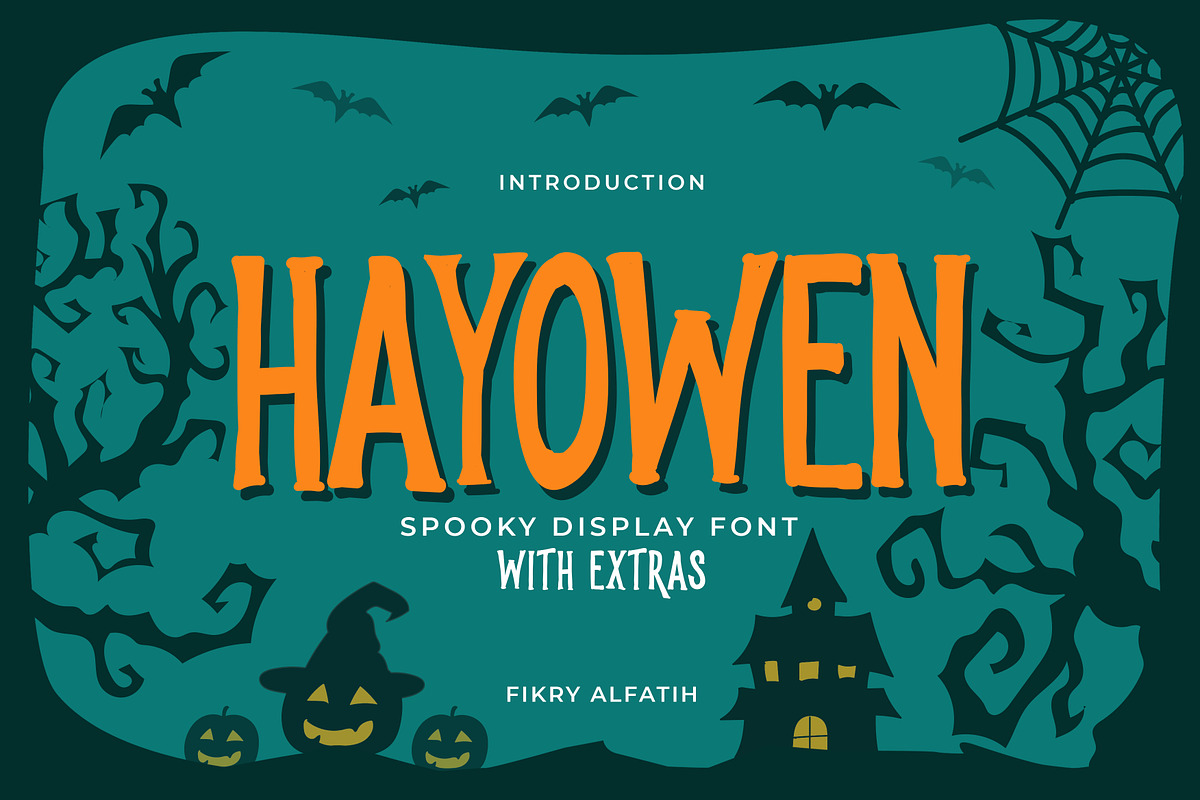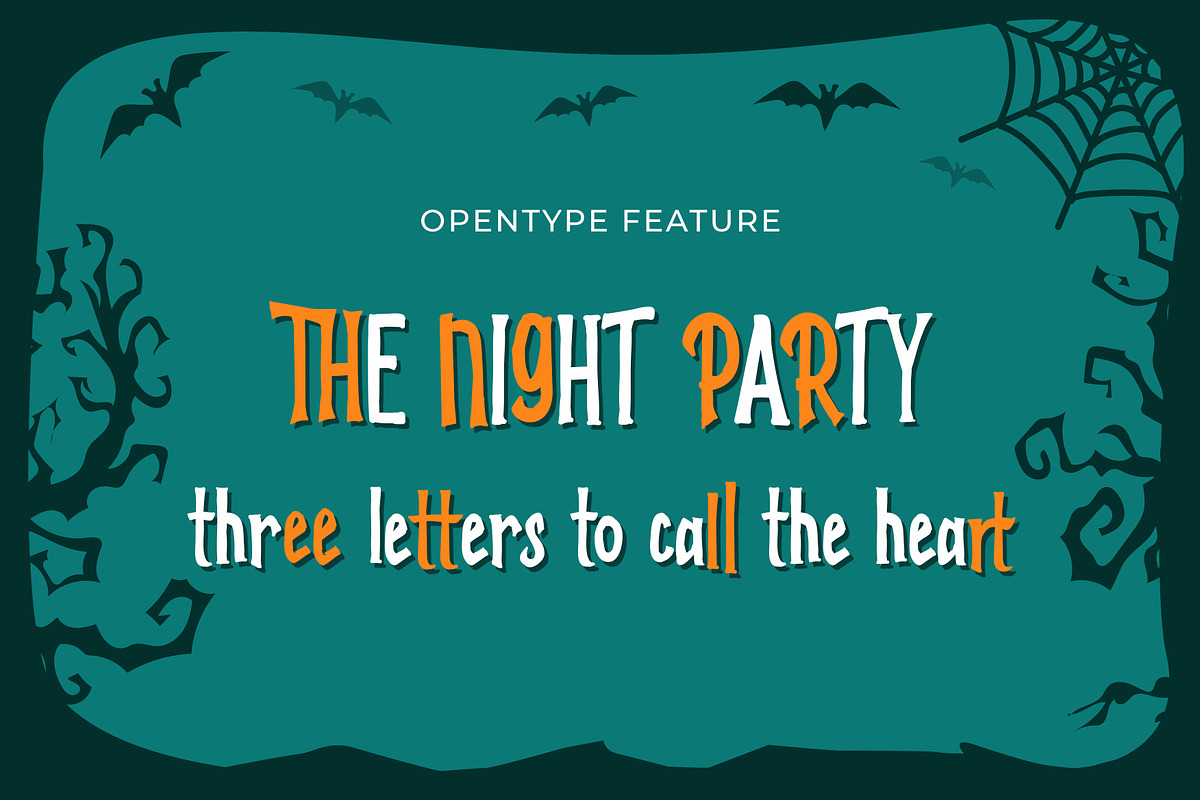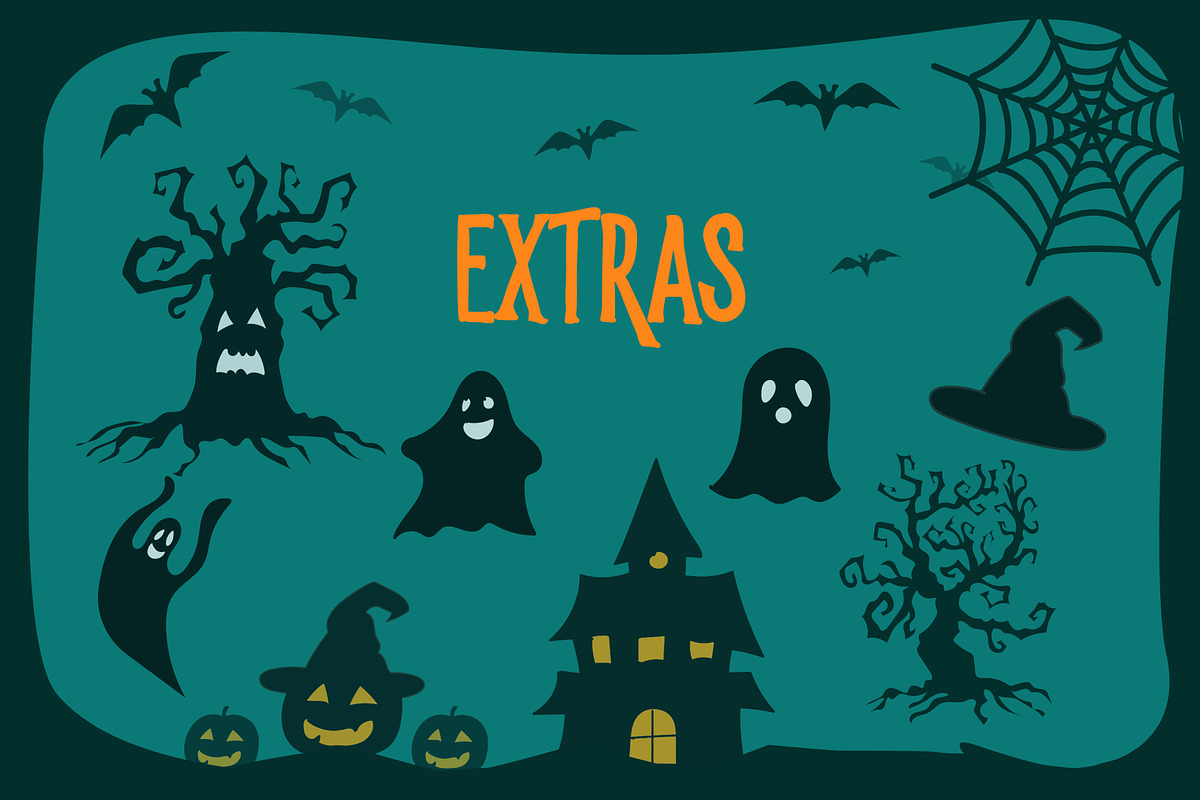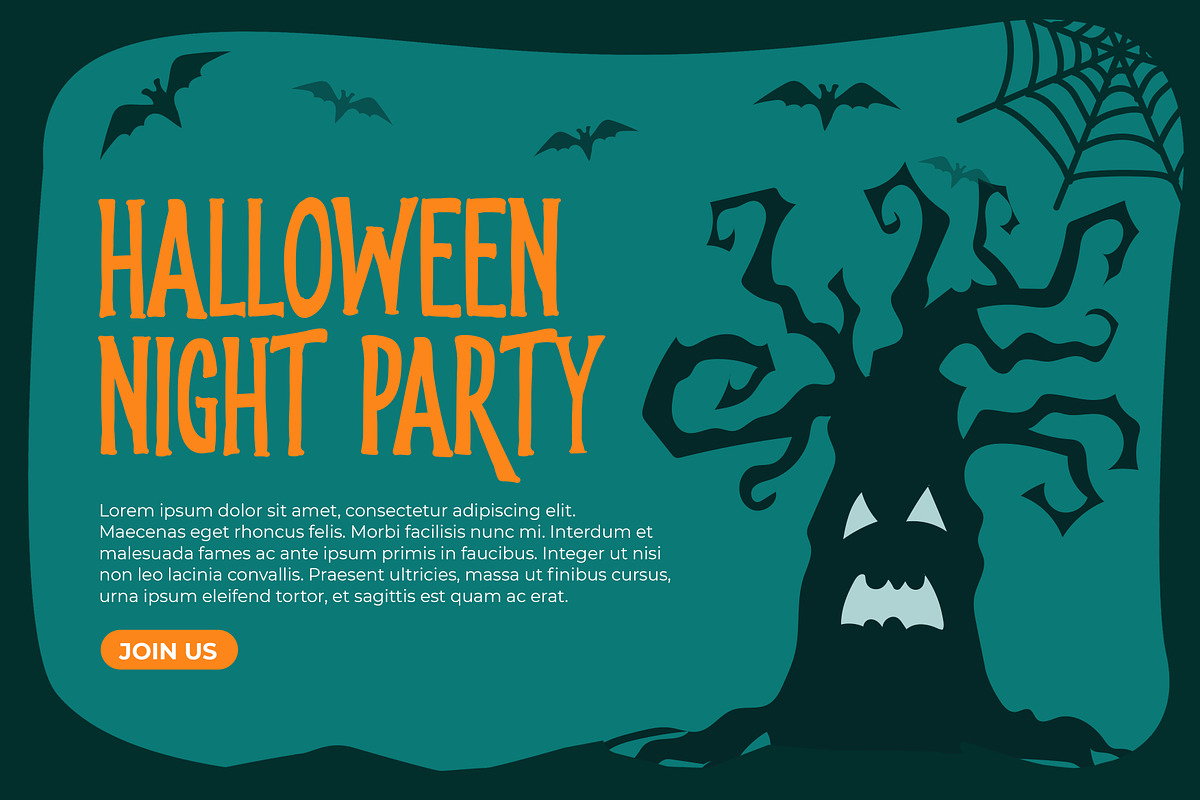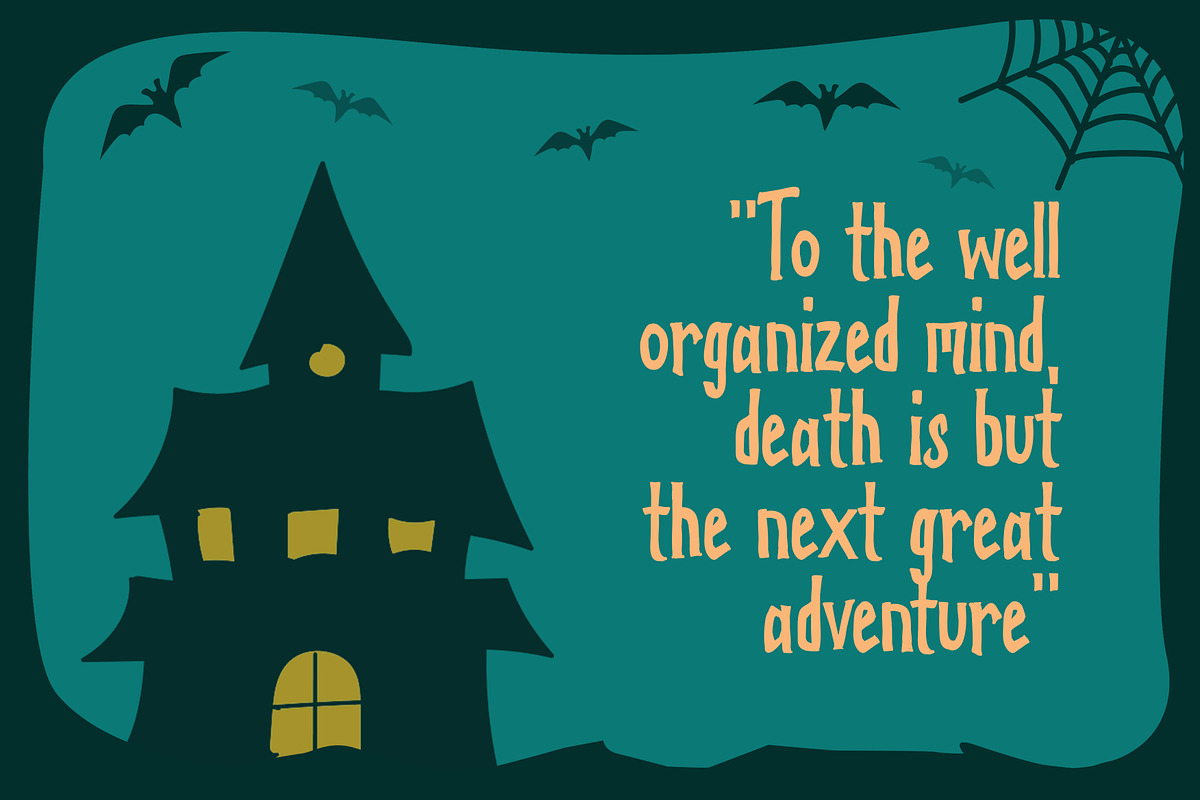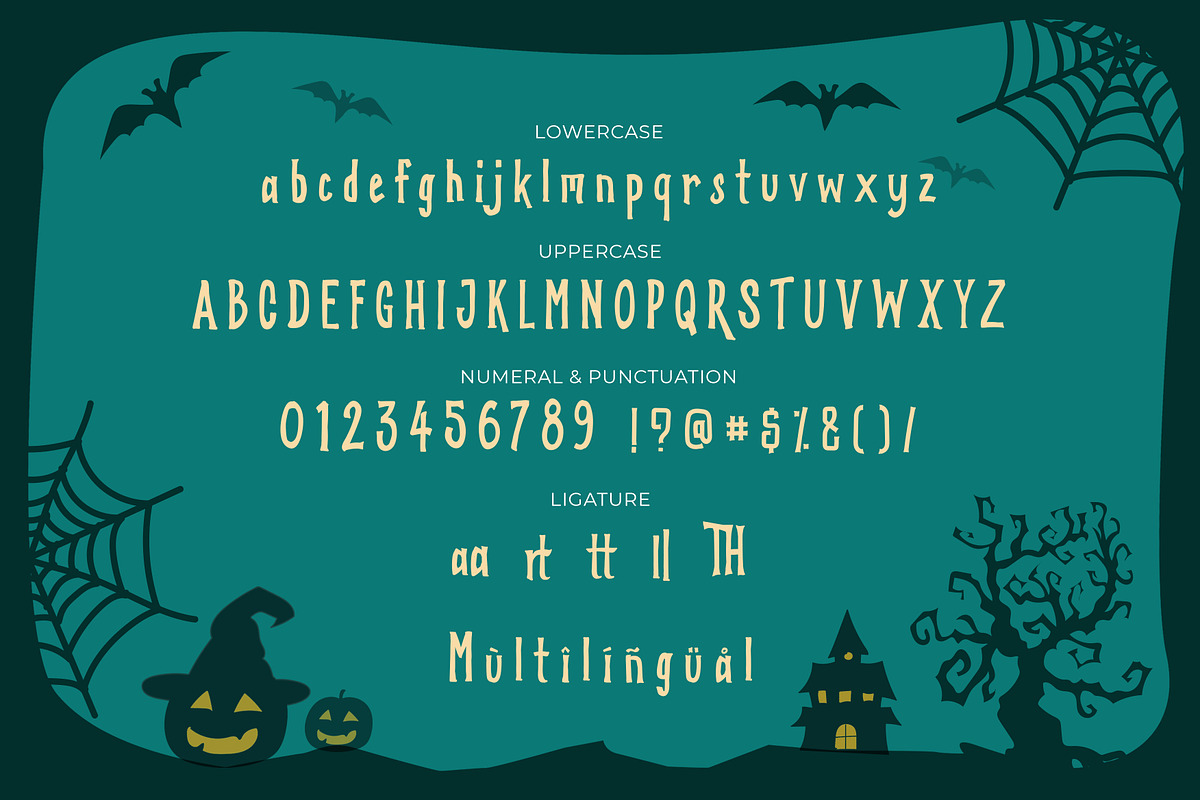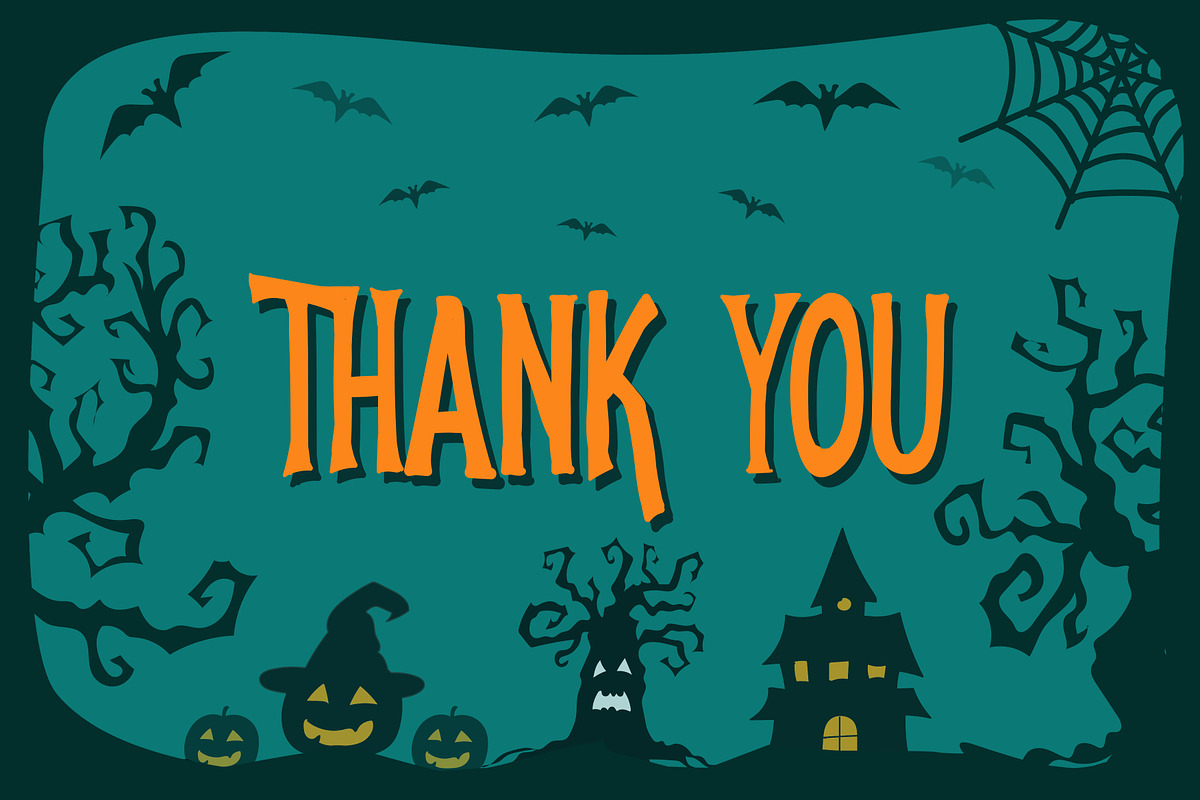
Hayowen Spooky Typeface + Extras
Hayowen is a font created to complement your Halloween Party. This font has a very strong character. Spooky, Horror and Fear. This font is perfect for creating Halloween posters or flyers.
This font comes with some bonus vector halloween icons